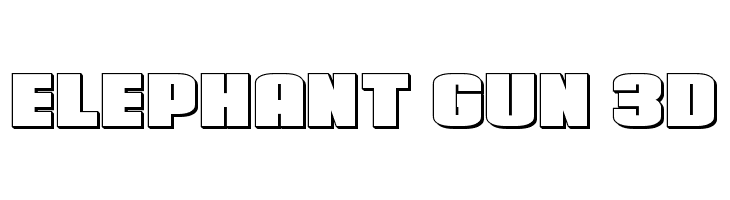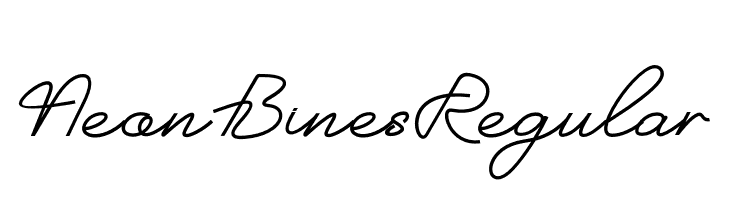
A classic serif font with an organic, historical feel and elegant serifs.
An elegant italic serif font with flowing lines and moderate contrast.
A modern serif font with clean lines and subtle curves, offering versatility and readability.
A bold, classic serif font with high contrast and elegant details.
A high-contrast serif font with elegant, sharp serifs and a classic style.
A modern, geometric font with clean lines and subtle gaps for a futuristic look.
A bold, 3D effect font with a strong, blocky appearance and subtle shadowing.
A bold, decorative font with a vintage style and subtle serifs.
A flowing, cursive script with elegant, connected letters and subtle flourishes.
A modern, elegant font with sharp lines and subtle curves, perfect for impactful designs.